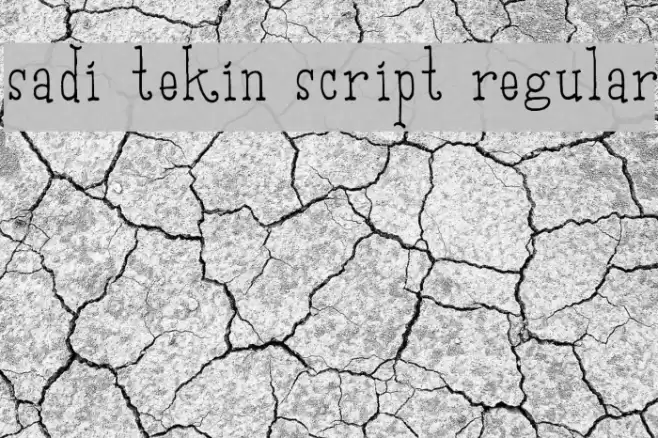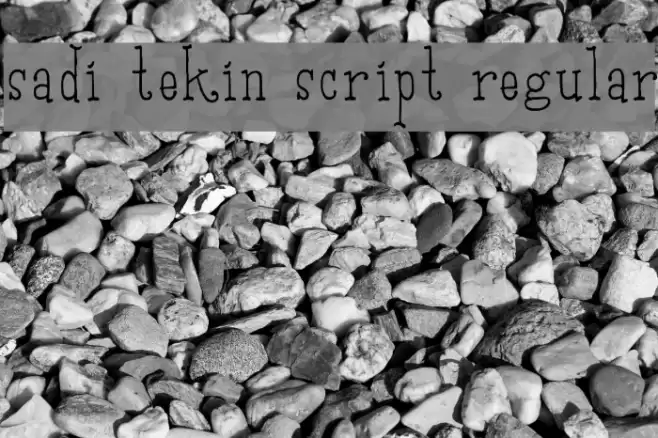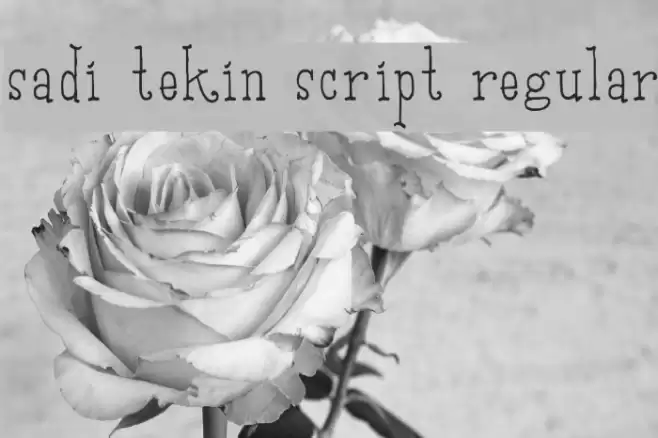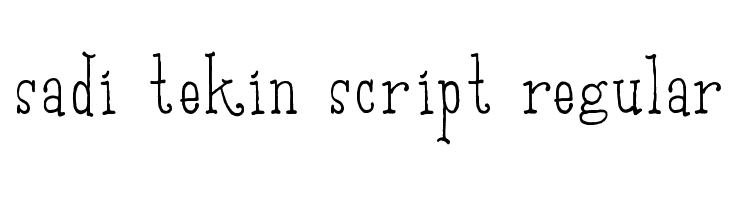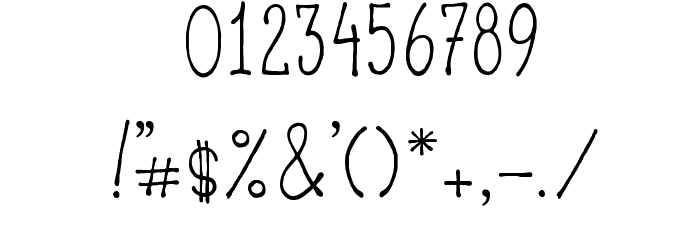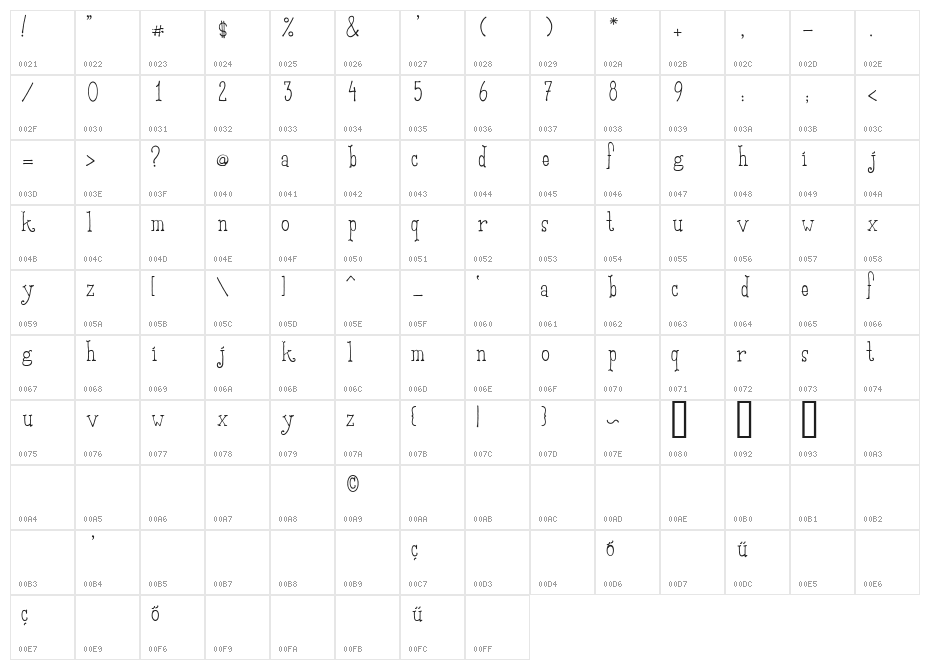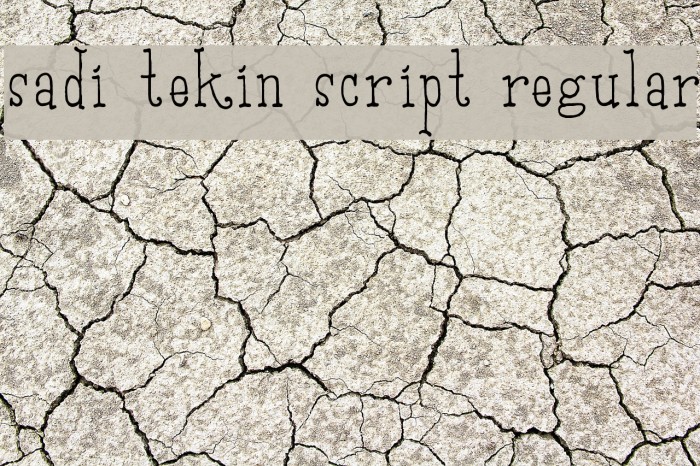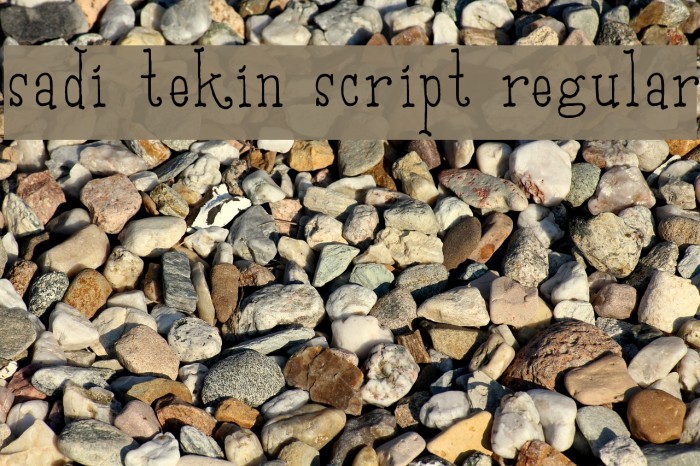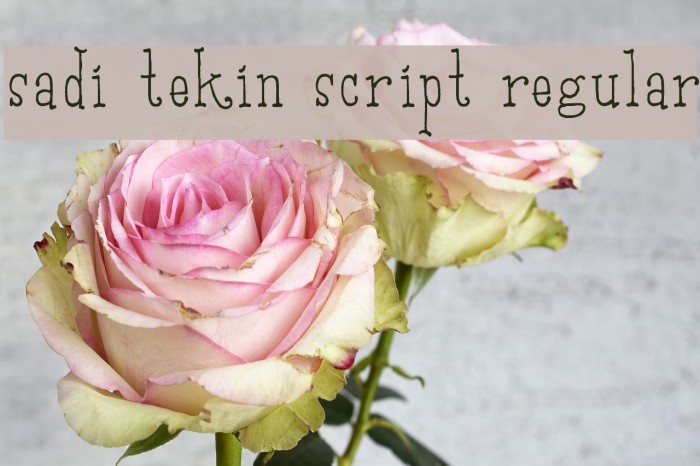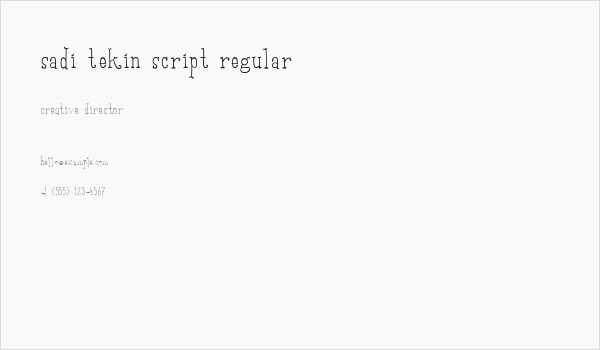
Sadi Tekin Script Regular Font
Sadi Tekin Script Regular Description
This font features a unique, playful style with a handwritten appearance. The characters are slightly irregular, giving it a whimsical and artistic feel. The strokes are thin and vary in thickness, adding a touch of elegance and charm. The lowercase letters have a distinct personality, with some letters featuring loops and curls that enhance the font's quirky nature. The numbers and special characters maintain the same playful aesthetic, making it versatile for creative projects. Overall, this font exudes a casual yet sophisticated vibe, perfect for adding a personal touch to any design.
A playful, handwritten font with thin, irregular strokes and a whimsical charm from Handwritten fonts.
- Proposed Projects: Ideal for greeting cards, invitations, personal branding, and creative projects that require a touch of whimsy.
- Overall Style: Whimsical, Artistic
- Use Case: Headlines, Creative projects, Personal branding